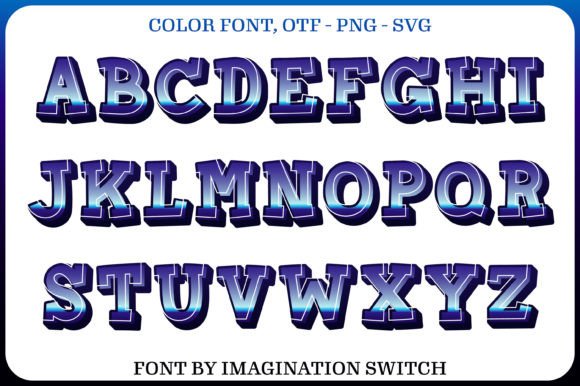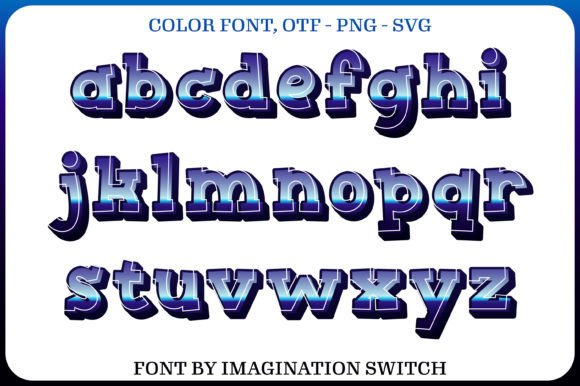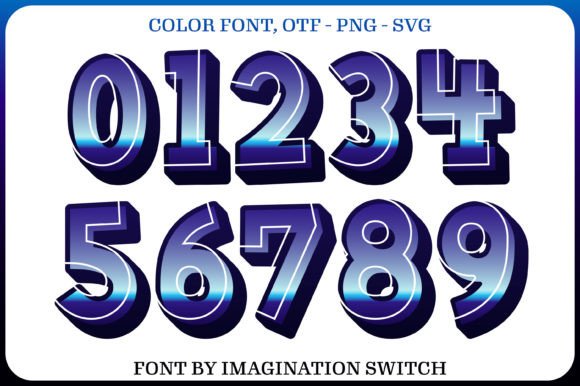
Introduction to Metallic Font
This font is a captivating typographic creation that utilizes intriguing colors to enhance its visual appeal.
With a complete set of characters, including uppercase, lowercase, and numbers, this font has been meticulously designed to provide flexibility across various types of projects When you utilize this font, you introduce uniqueness and creativity to your designs.
Key Features of Metallic Font
Metallic Font offers exceptional quality and versatility, making it a valuable addition to your design toolkit. Whether you’re creating for personal projects or commercial use, Metallic Font delivers professional results.